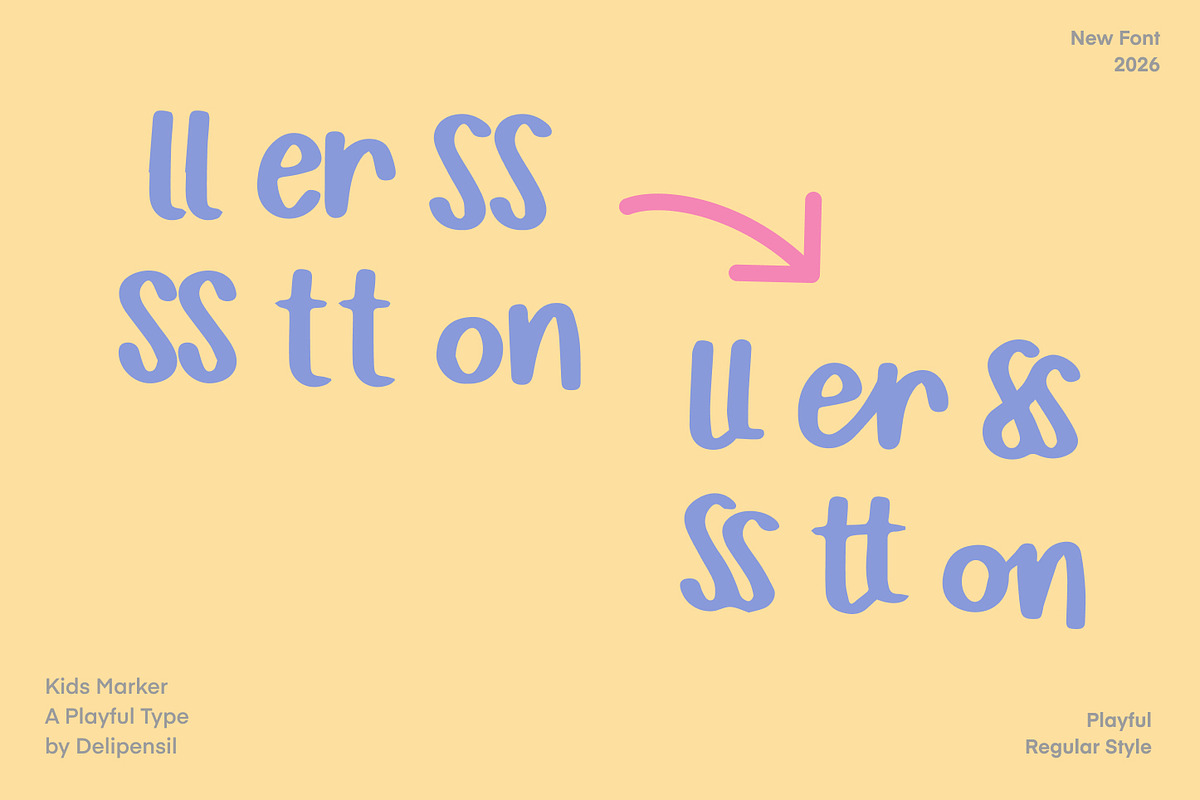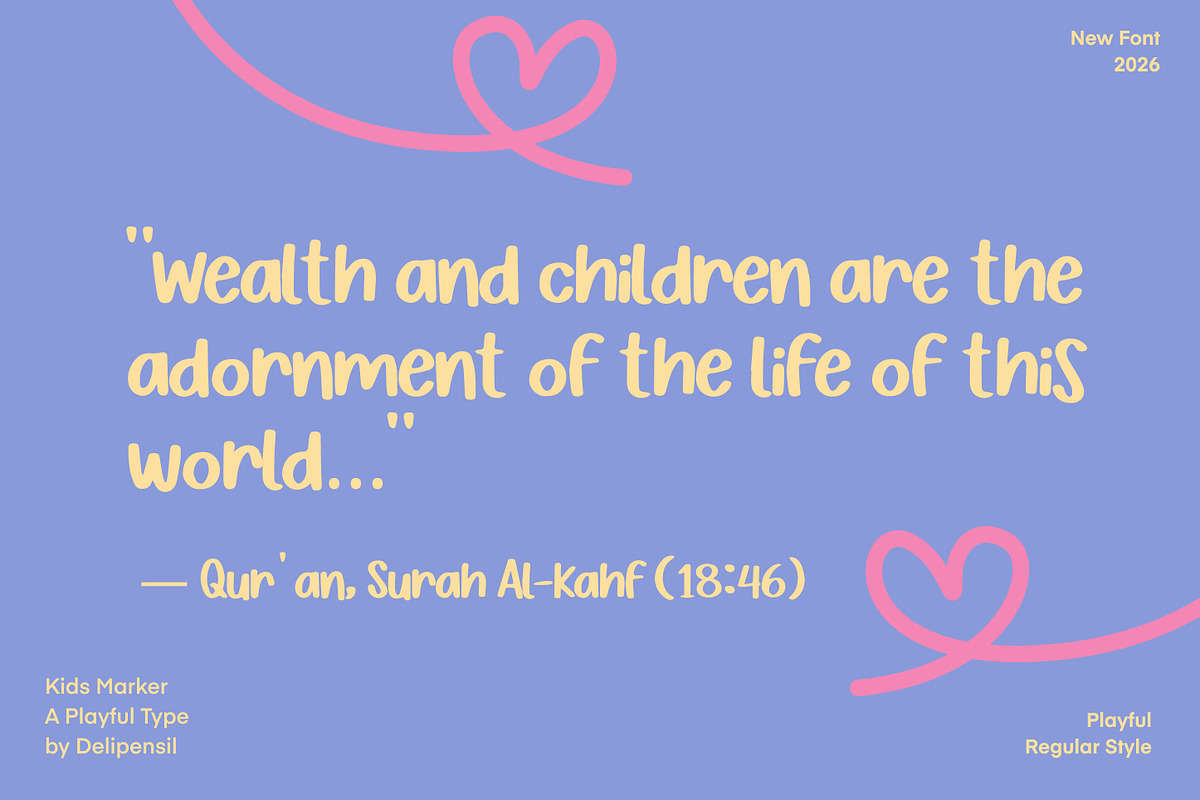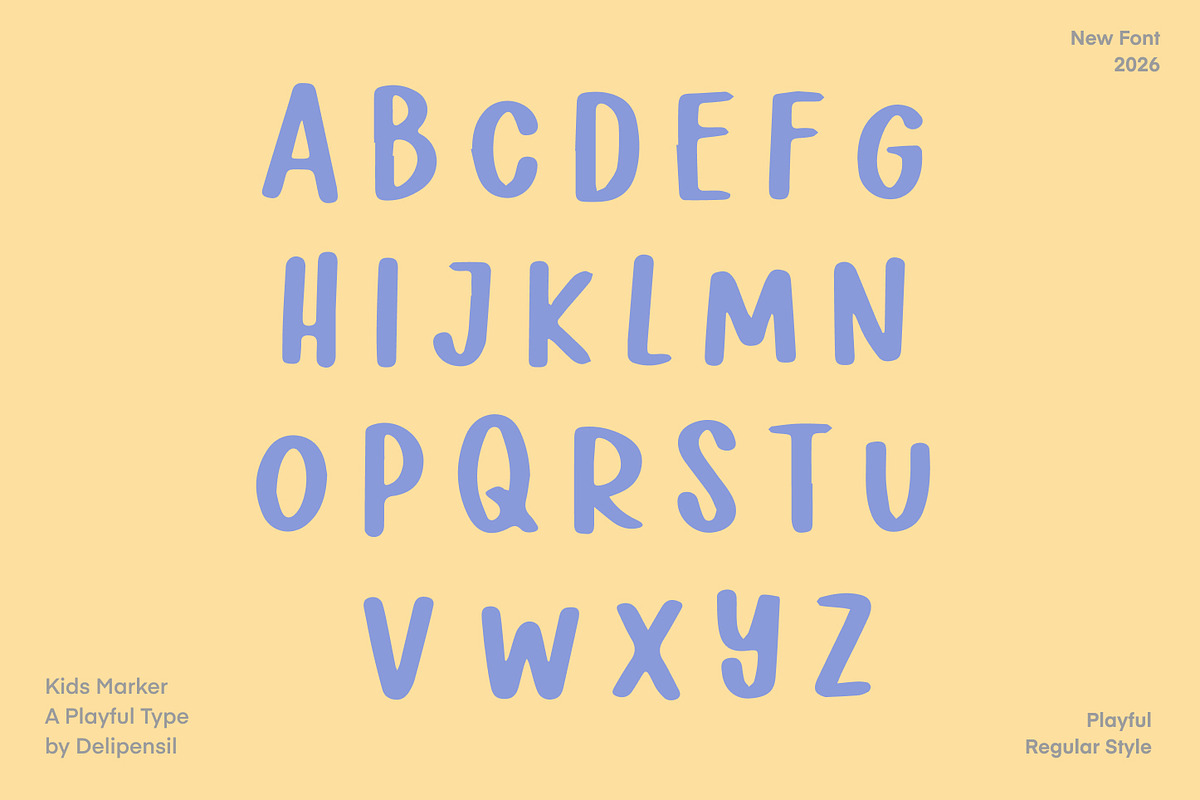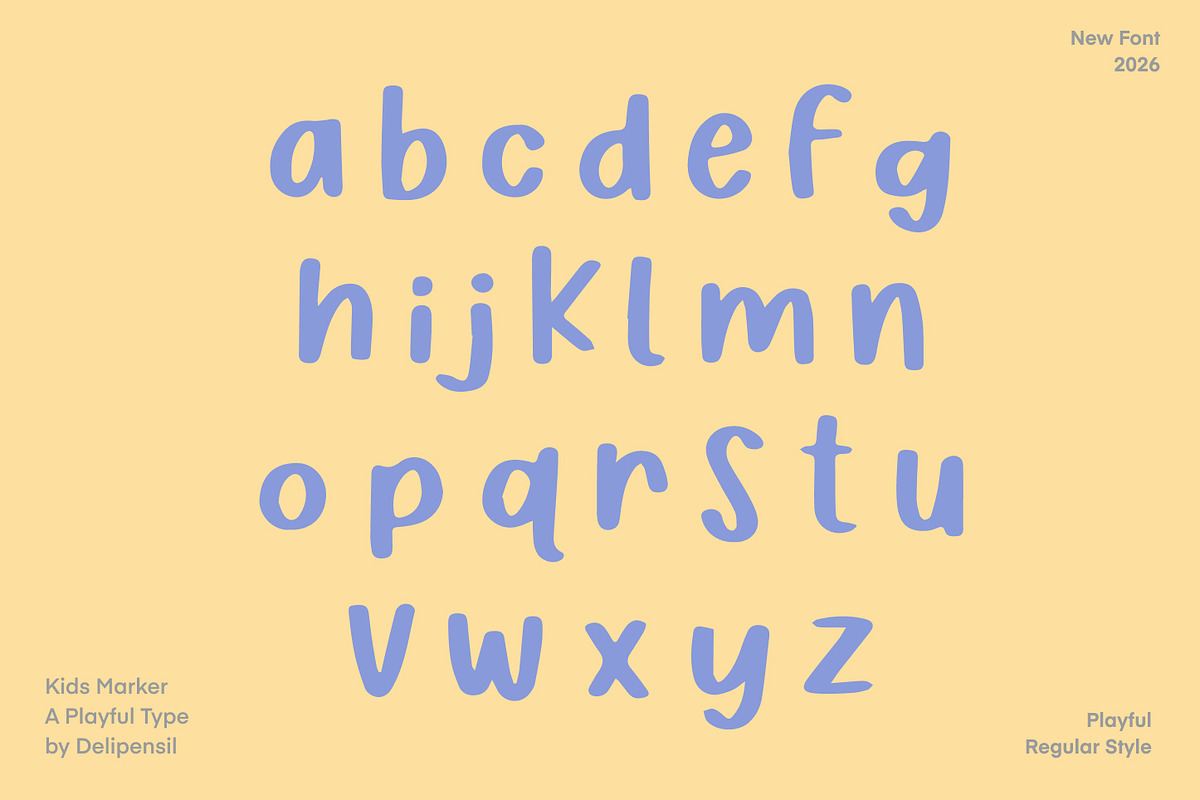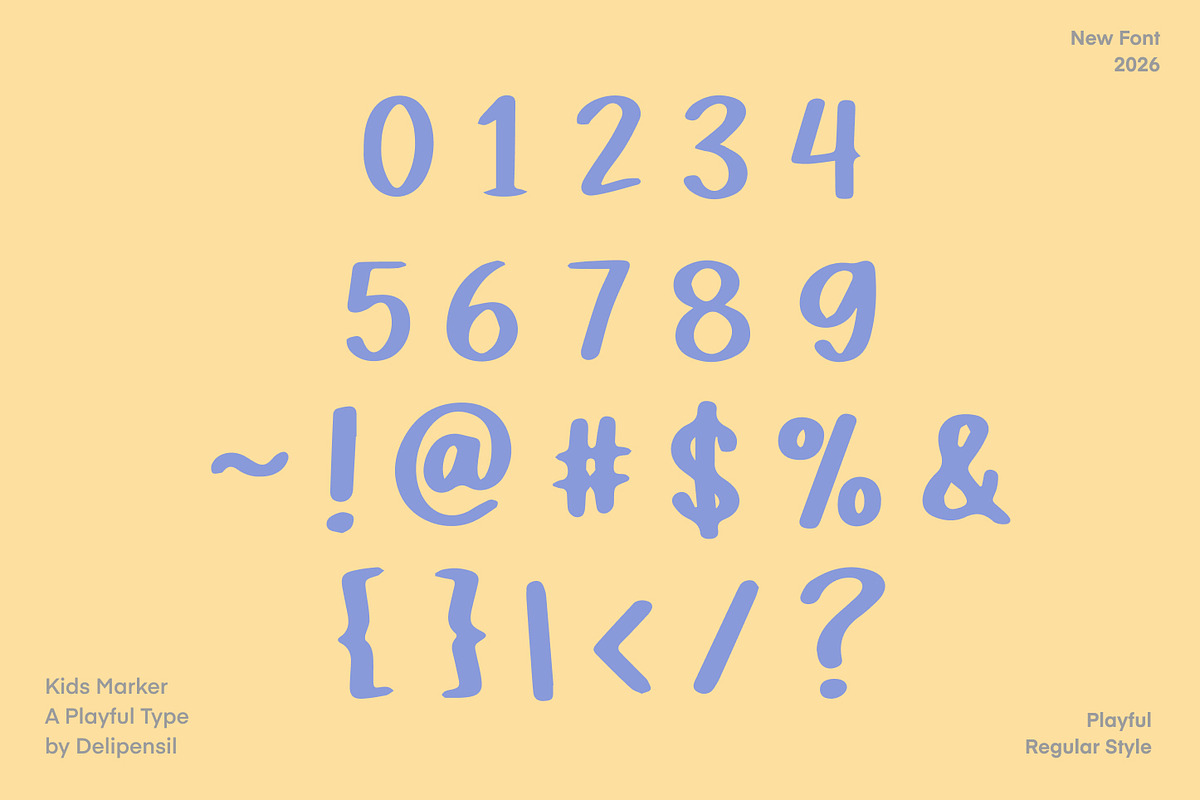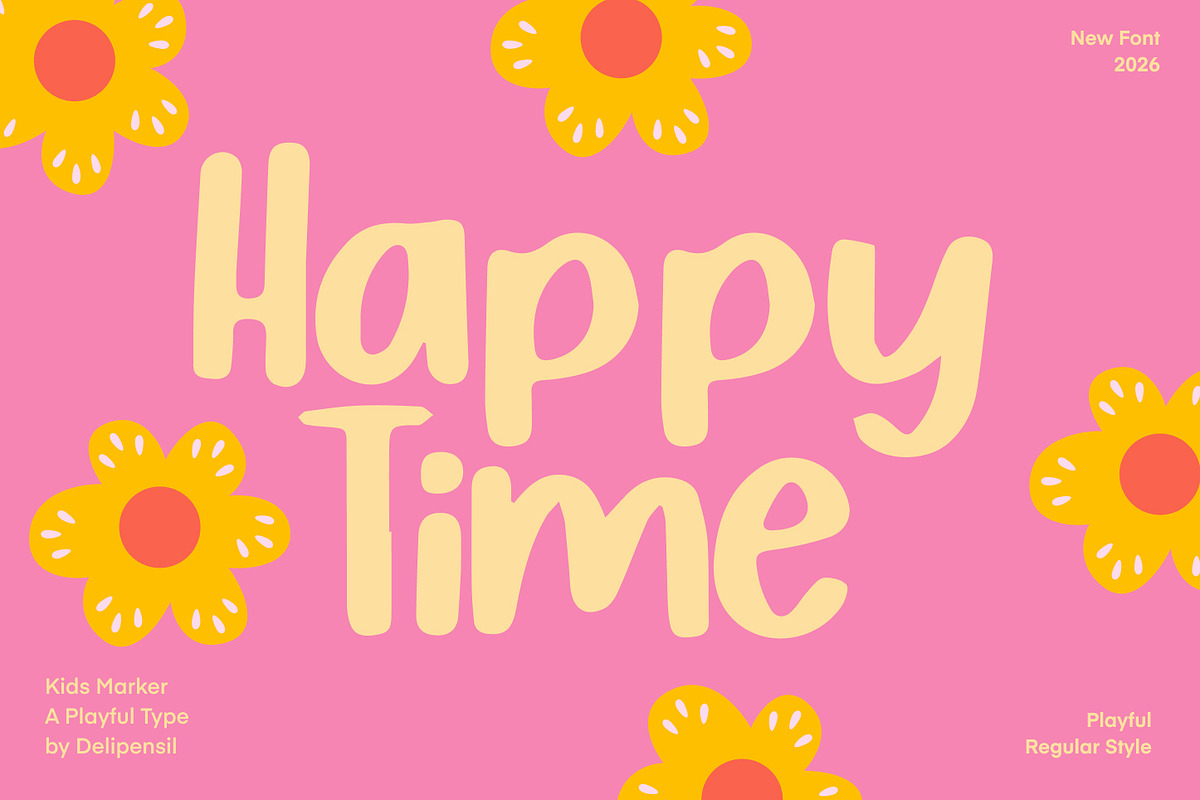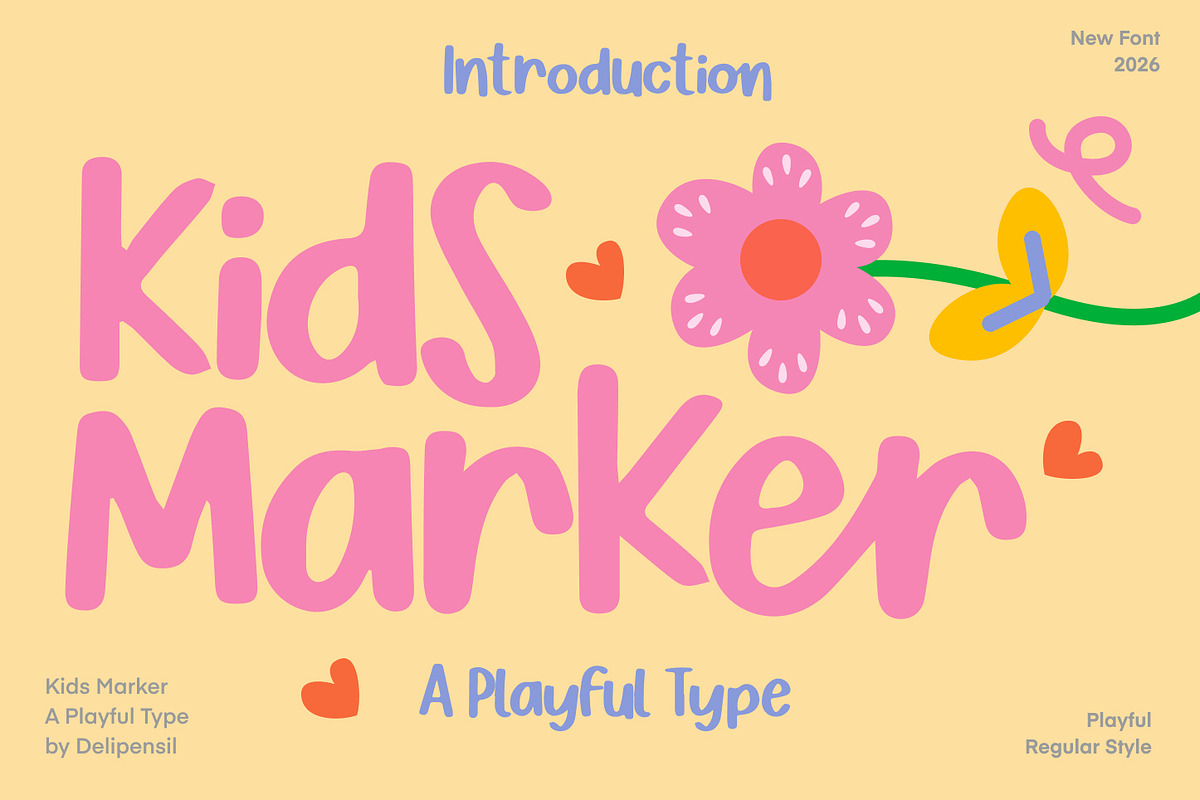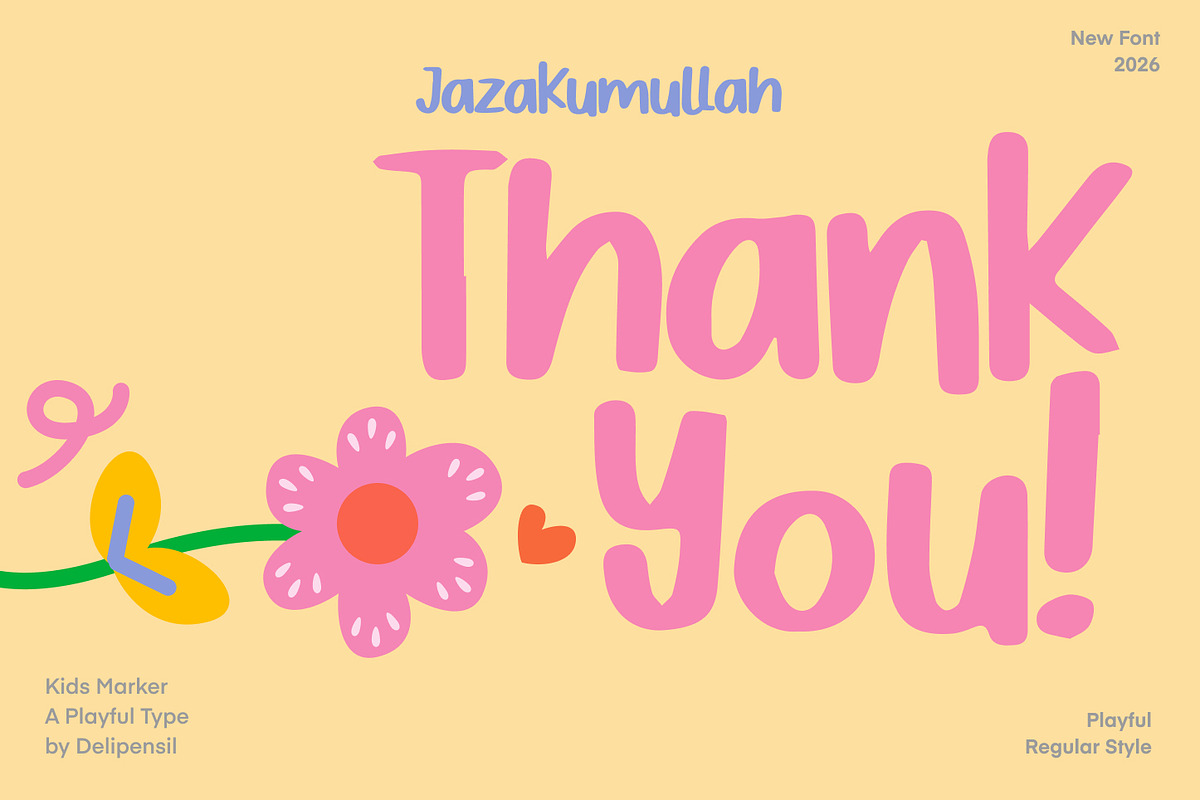
Kids Marker - Playful Handwritten
Kids Marker – Playful Handwritten Font
Bismillah Introduction Kids Marker is a fun and playful handwritten font designed to bring a cheerful and friendly feel to your creative projects. With its natural marker style, this font is perfect for children-related designs, school materials, posters, packaging, branding, and social media content. The lively strokes and casual shapes make your text look more personal, energetic, and approachable.
This font works great for:
- Kids-themed designs
- Educational materials
- Posters and flyers
- Branding and packaging
- Social media graphics
- Invitations and greeting cards
- DIY and craft projects
- Uppercase & Lowercase letters
- Smooth handwritten marker style
- Ligature style
- Suitable for print and digital projects
Kids Marker adds a joyful and creative touch to any design, making it ideal for projects that need a fun and friendly personality.